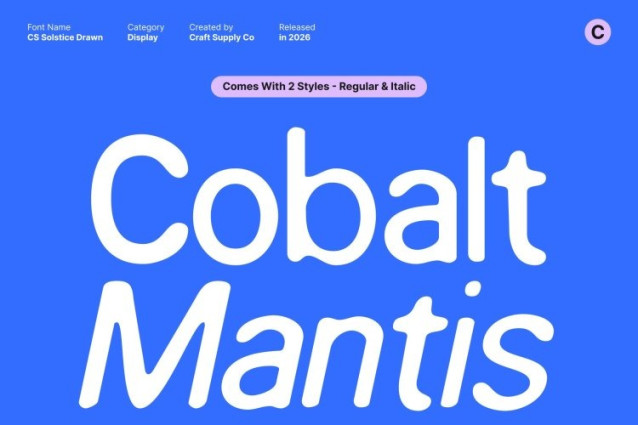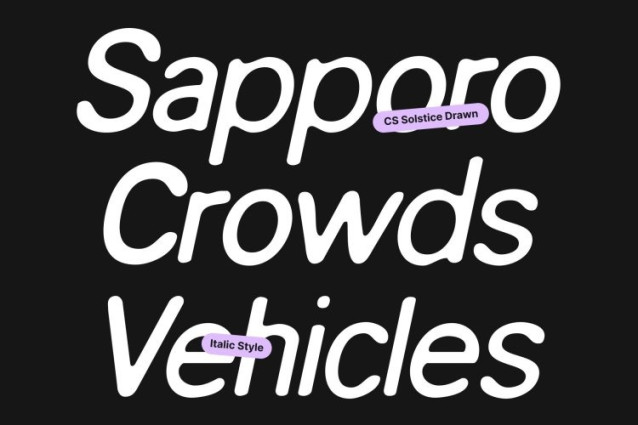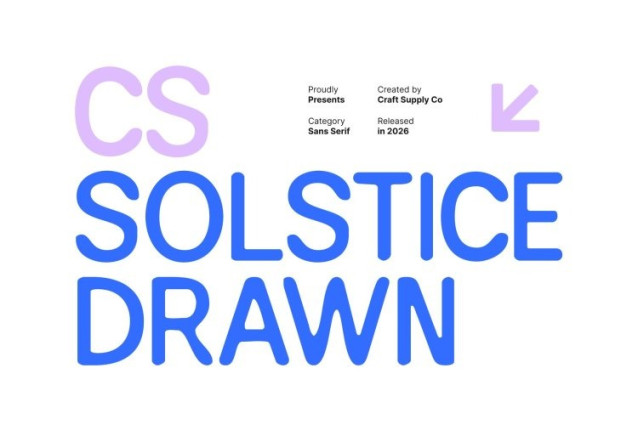
CS Solstice Drawn Font
CS Solstice Drawn Font This is a modern sans serif with confidence and clarity, enhanced by a subtle hand-drawn effect. Each letter carries delicate imperfections and textured strokes, giving the typeface a tactile, crafted feel. This combination of clean geometry and drawn personality adds presence to every design.
Structured Simplicity with Visual Character
Maintaining minimalism and geometric harmony, this font introduces subtle irregularities in stroke edges and curves. These handcrafted details create a balance between precision and artistic flair, making the text feel professional while conveying originality and movement.
Perfect for Headlines, Branding, and Impactful Design
Ideal for headlines, editorial layouts, and modern branding, this font transforms standard sans serif typography into an expressive visual tool. Its textured forms add energy and visual interest, ensuring every word communicates authority with a fresh, handcrafted touch.
Swiss-Inspired Elegance Meets Artistic Expression
Inspired by the clean principles of Swiss design, this font blends timeless structure with contemporary artistry. The drawn textures and subtle organic shapes elevate modern elegance, making this font a versatile choice for designers seeking sophistication, clarity, and handcrafted personality in every application.